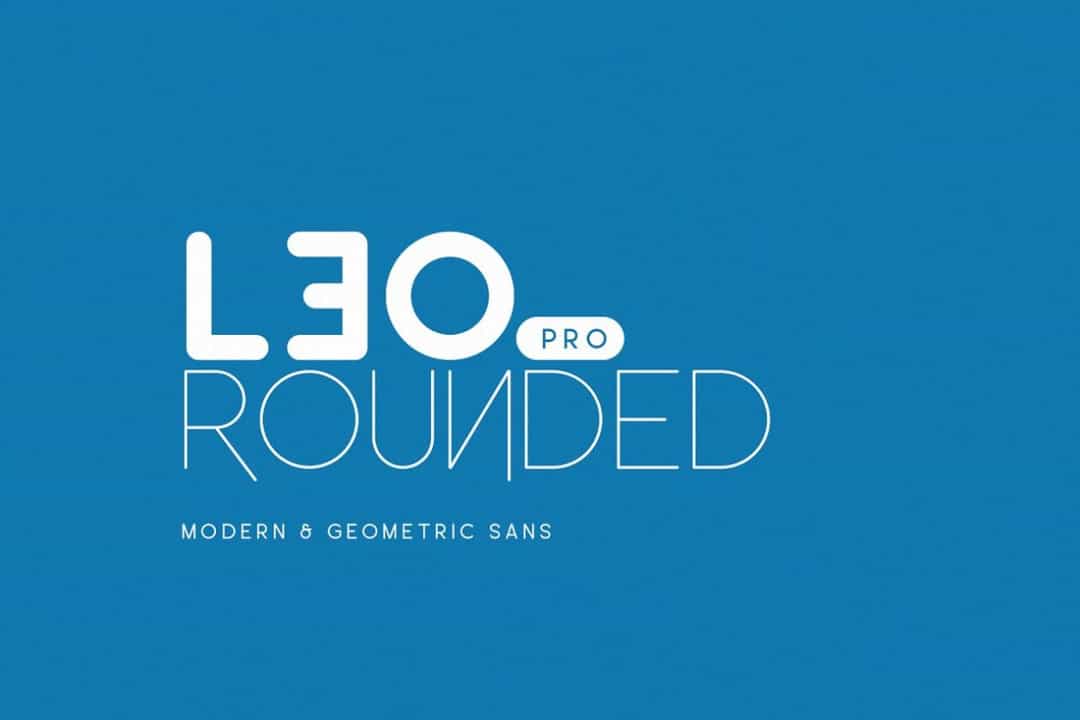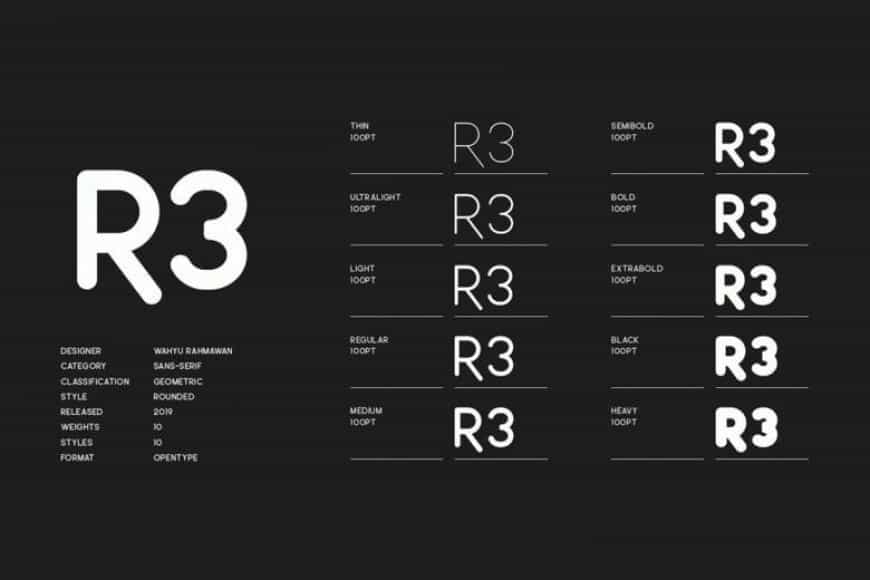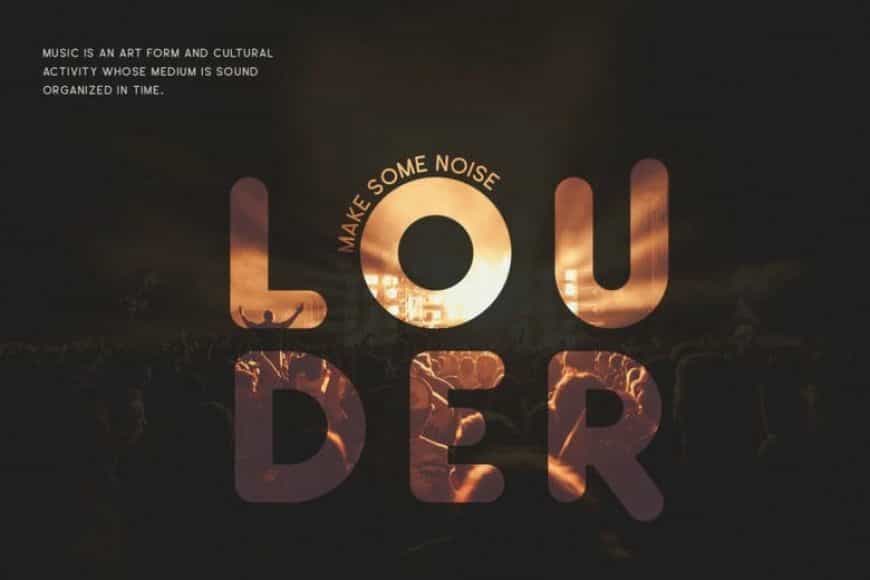
Leo Rounded Pro is the addition to the Leo Sans font family offering a blend of elements and soft edges in 10 different weights. Its clean uppercase and lowercase characters create a contrast.